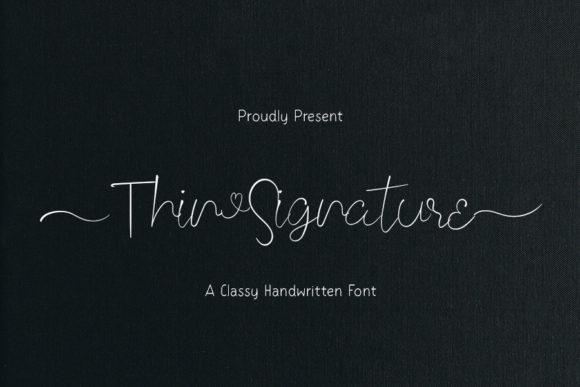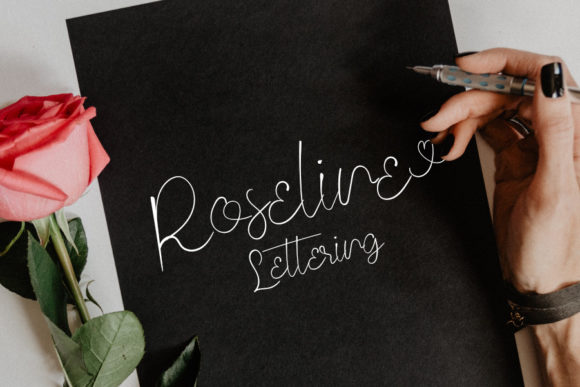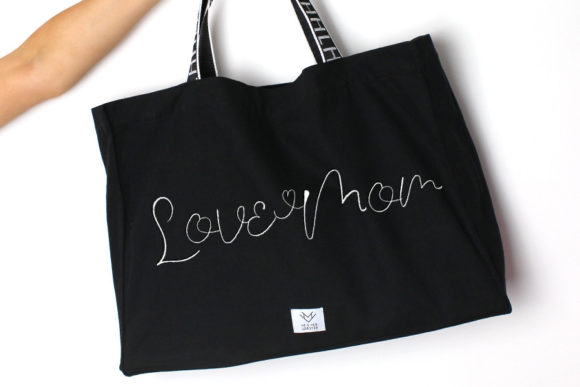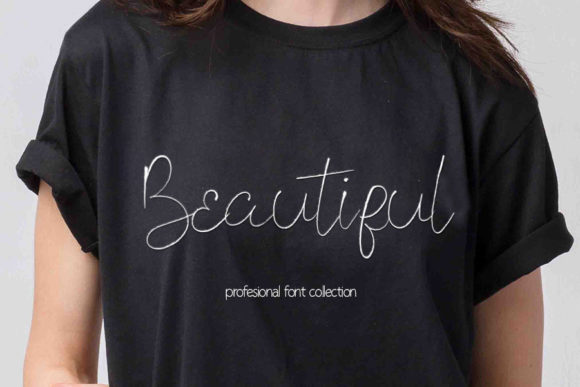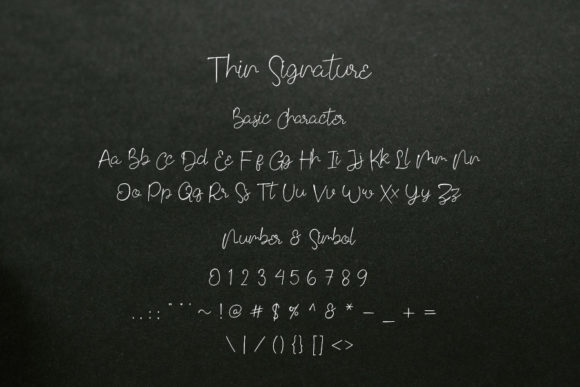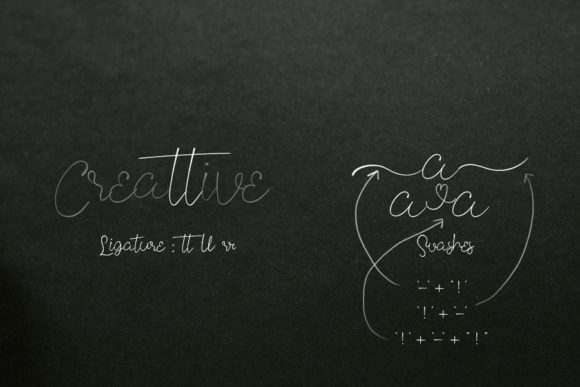
Thin Signature Font
About Thin Signature Font
Thin Signature is a beautiful and calligraphic font that exudes elegance and class. This font is specially crafted for those who need a beautiful and refreshing look to their designs.